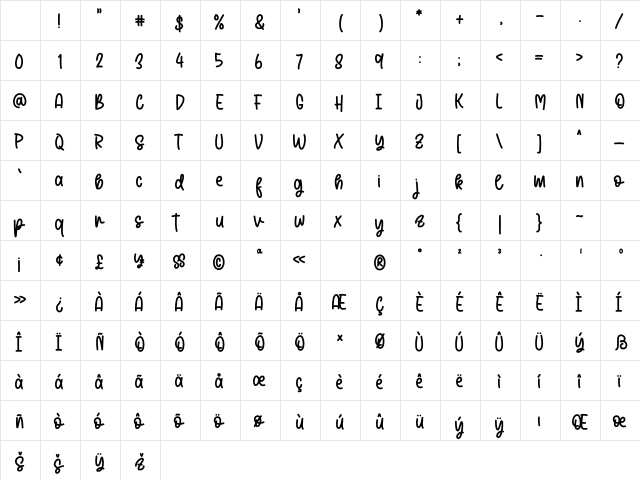
Complete September Farmhouse Regular glyph index. Displaying only characters natively supported by September Farmhouse Regular font.
September Farmhouse is a composed and adaptable typeface that performs quietly and consistently across a wide range of design contexts.